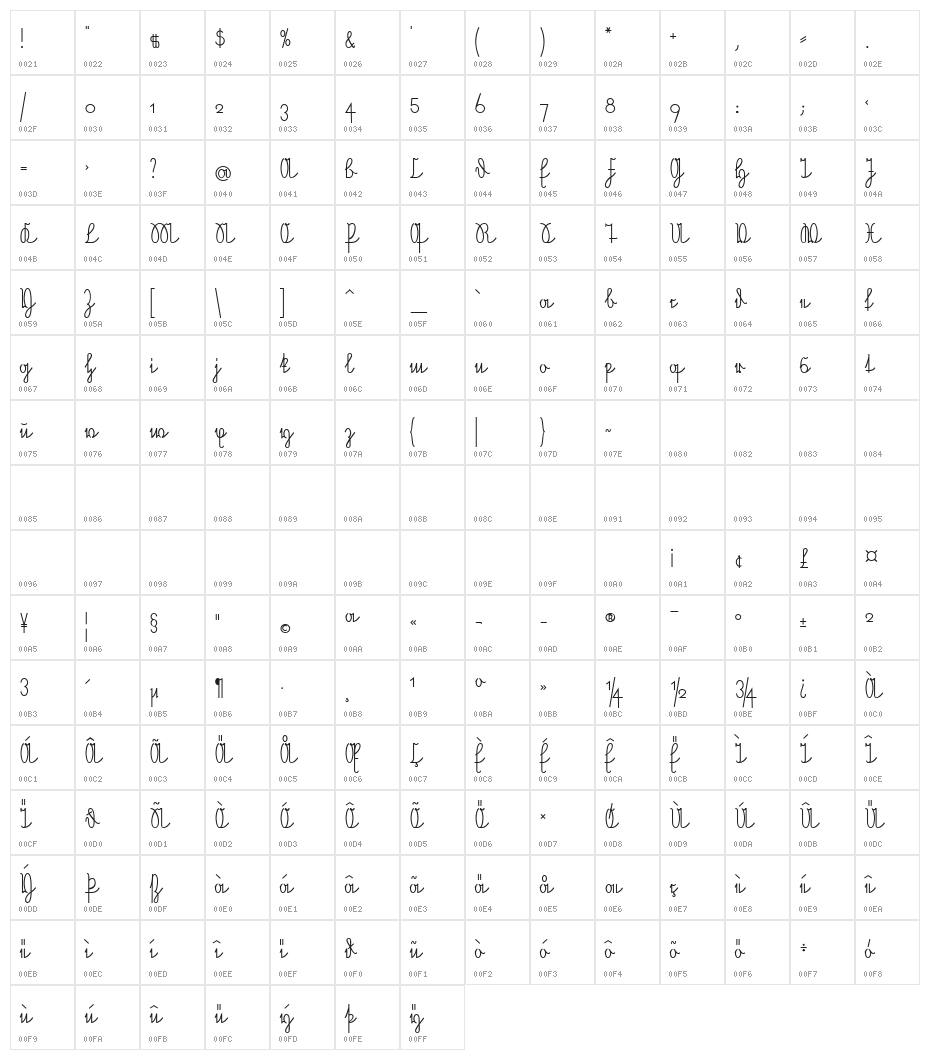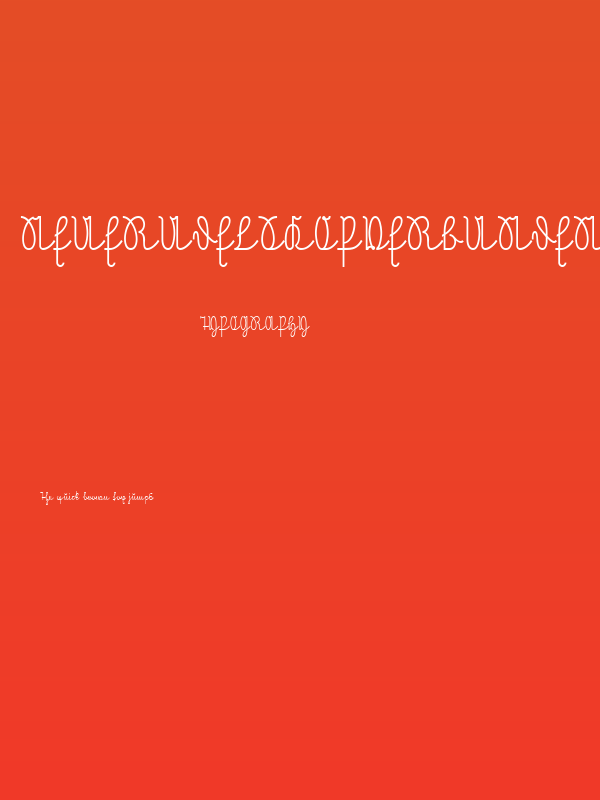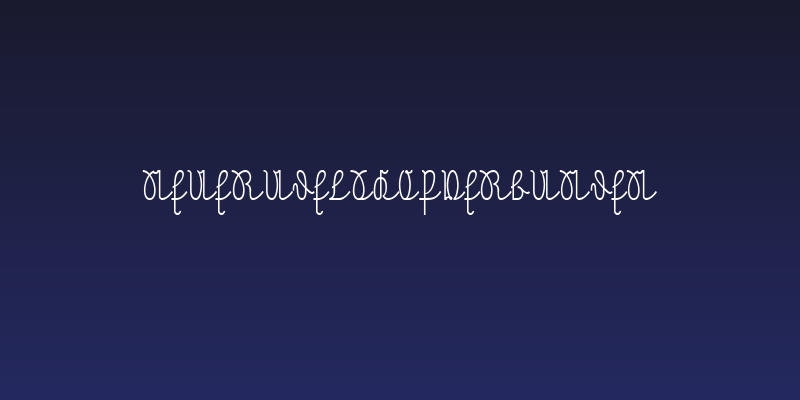
NeueRudelskopVerbunden Font
NeueRudelskopVerbunden Description
This font features a unique and artistic script style with a flowing, connected appearance. The letters are elegantly curved, with each character seamlessly transitioning into the next, creating a continuous and harmonious look. The uppercase letters exhibit a sophisticated flair, while the lowercase letters maintain a consistent and graceful form. Numbers and special characters are designed to complement the overall style, ensuring a cohesive visual experience. The font's delicate strokes and intricate design make it ideal for projects that require a touch of elegance and creativity.